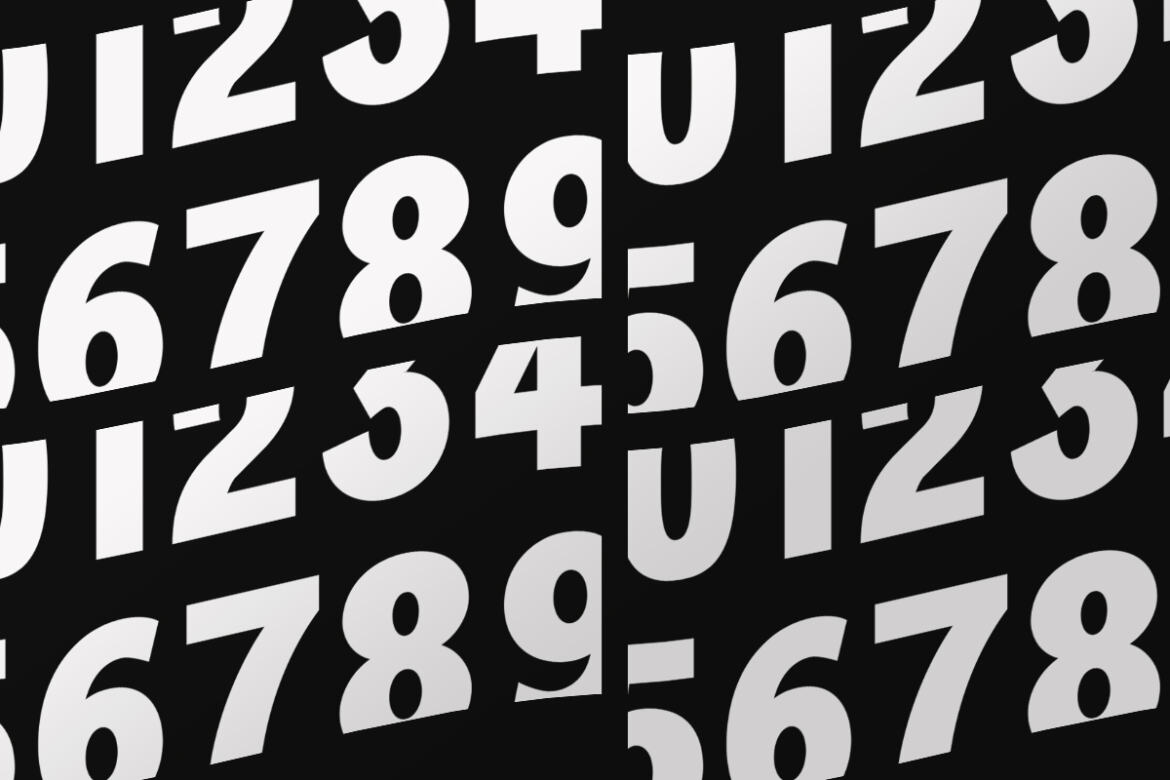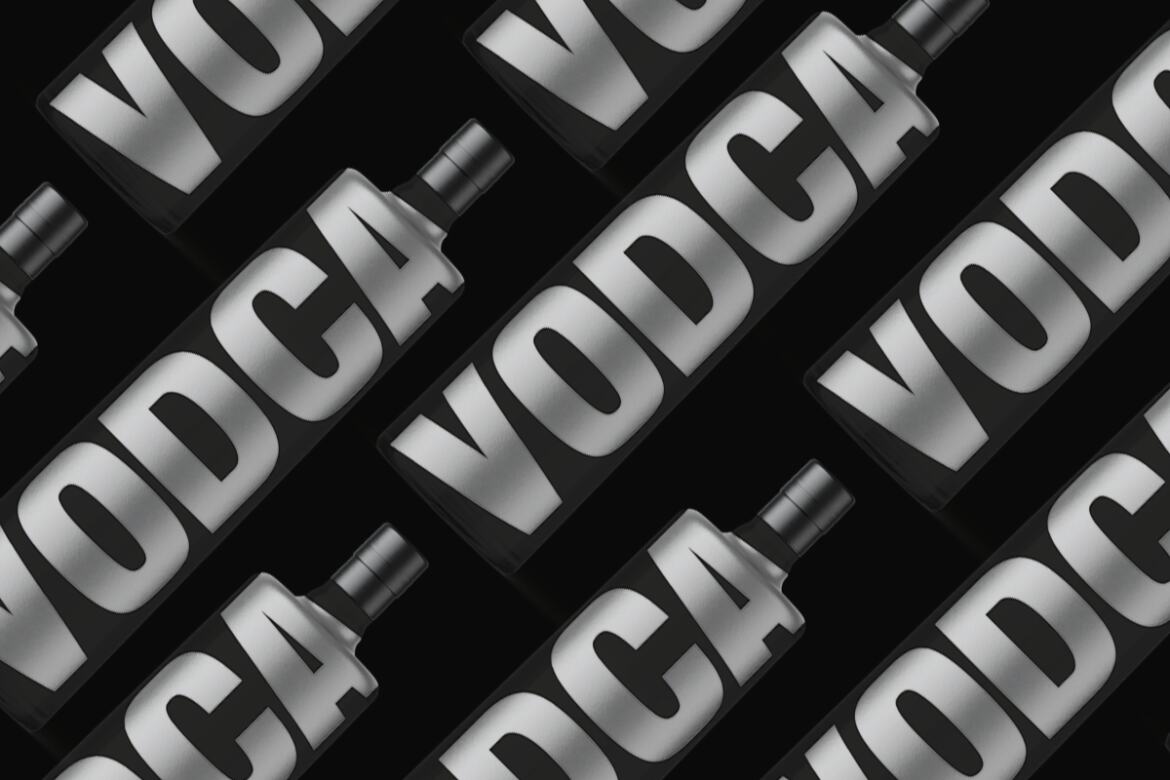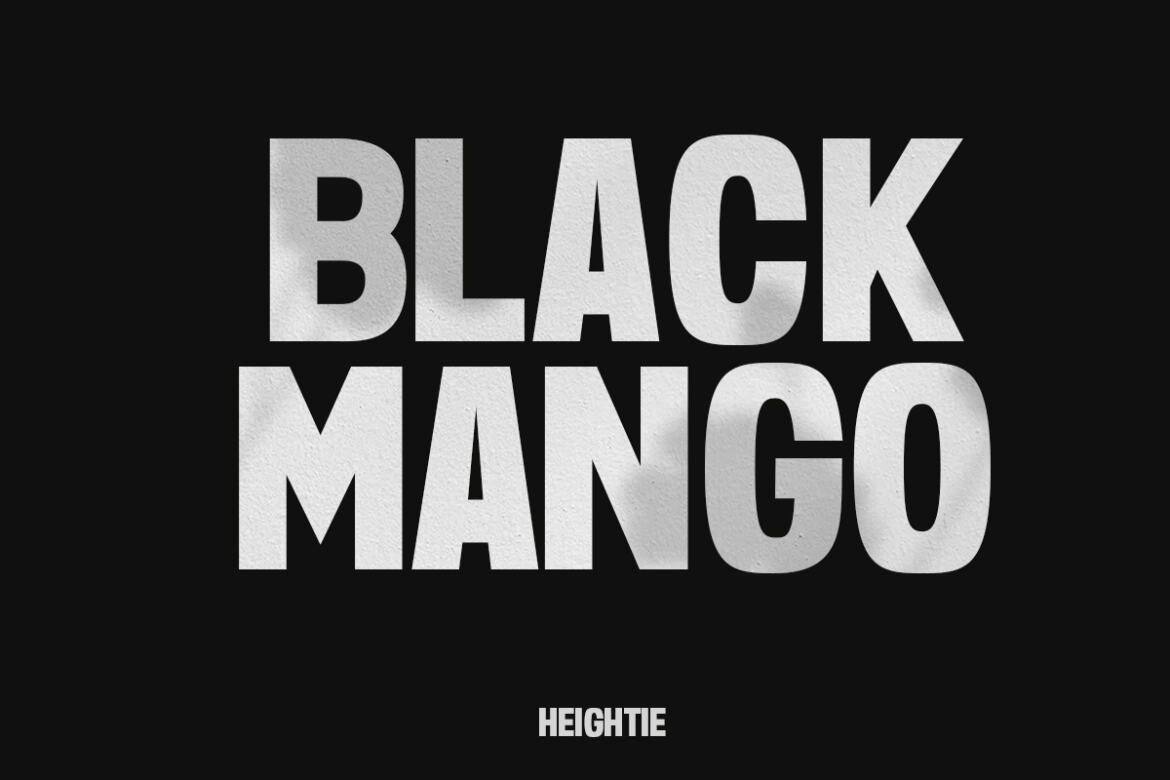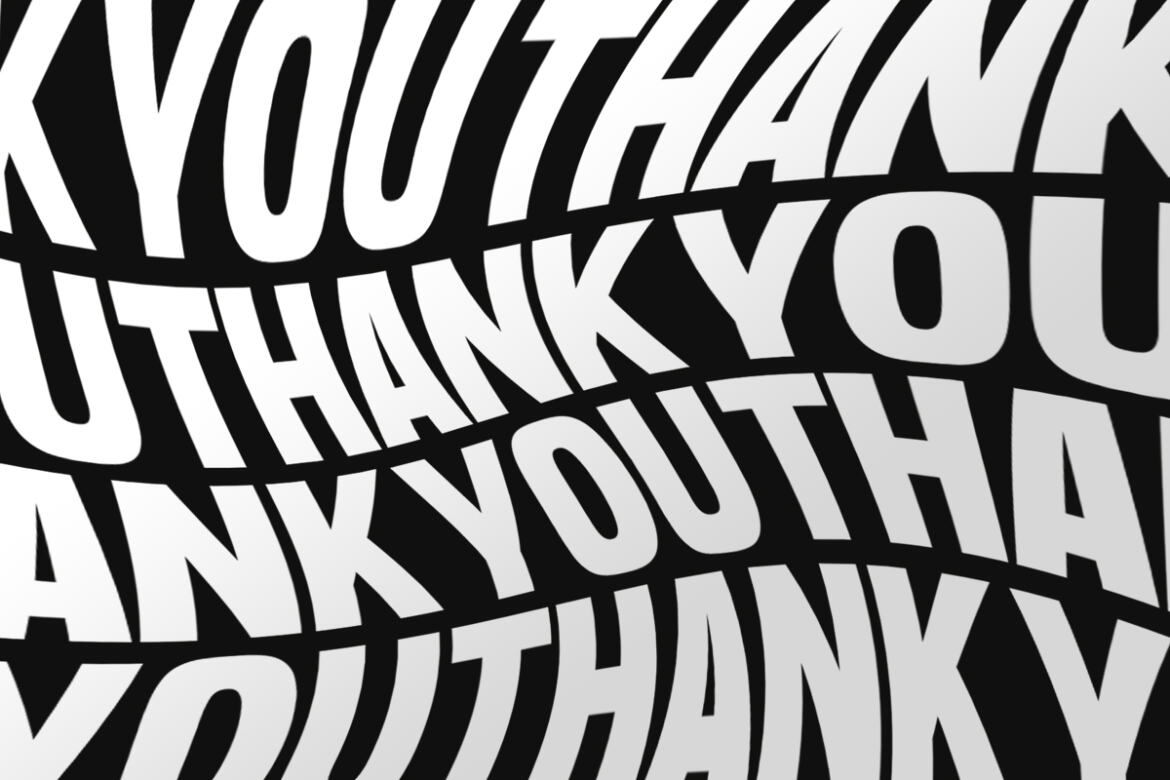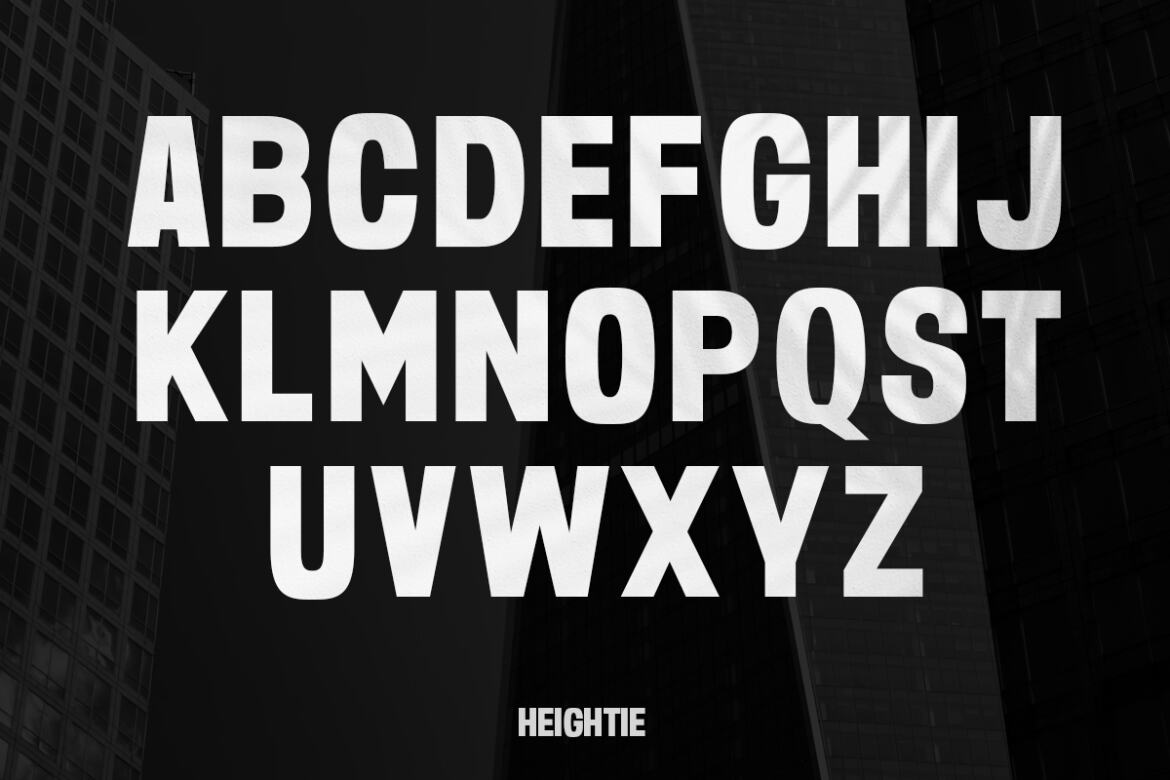
Heightie Headline FREE Font
The Headline Free Font Heightie is a beautiful, stylish font that is perfect for headlines and other creative applications. This font is available in two different styles: regular and italic. Each style includes a different set of characters, so you can mix and match to create the perfect look for your project. This font is absolutely free for personal use. Simply download the ZIP file from the link below and extract the font files to your computer. Then, you can install the font on your computer and start using it in your favorite software.